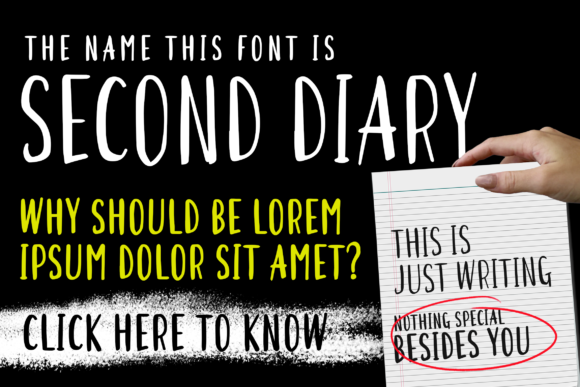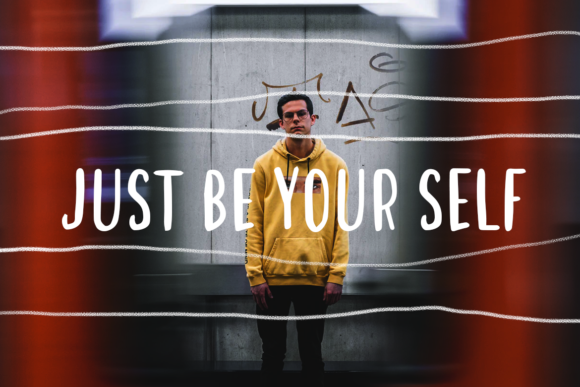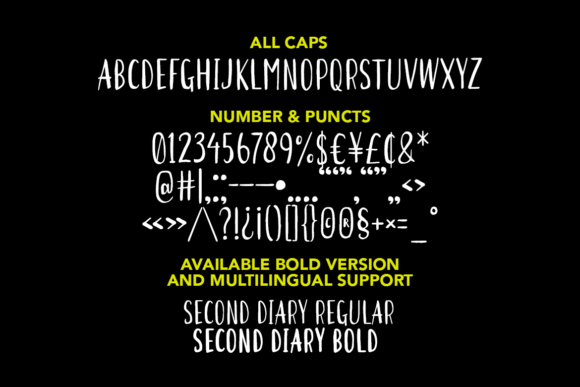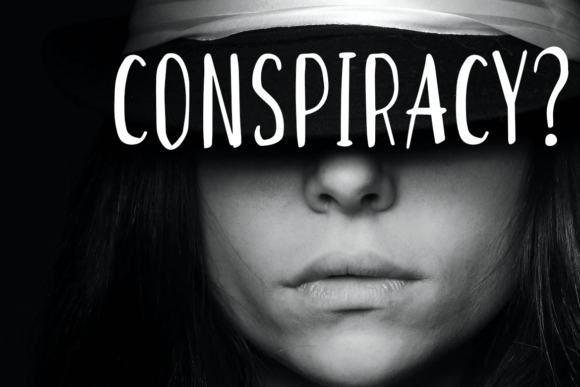
Second Diary Font
About Second Diary Font
Second Diary is a simple, casual and readable handwritten font. Its natural and unique style makes it incredibly fitting to a large pool of designs. The only limit is your imagination!